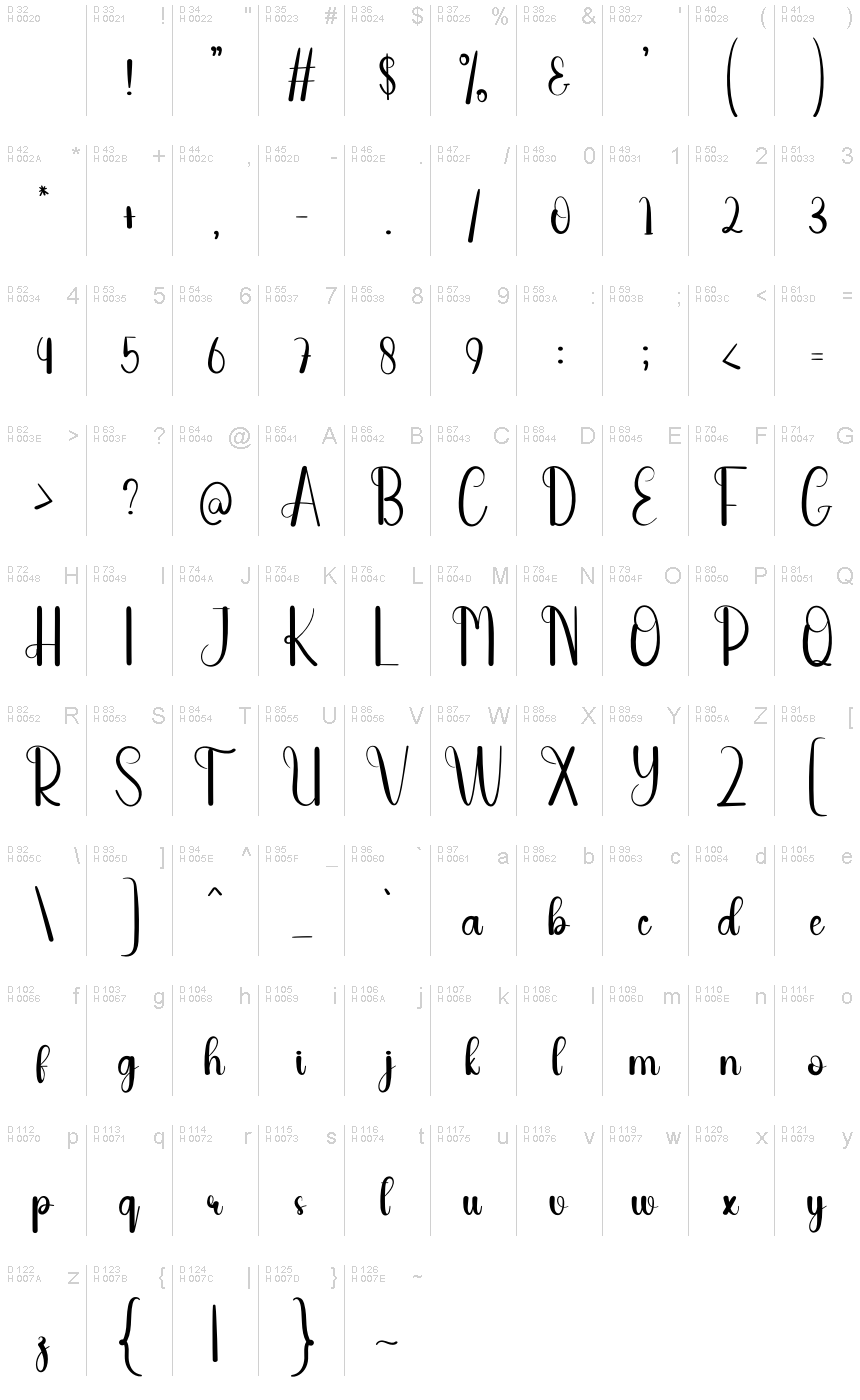
Nightday
Nightday is a captivating handwritten font that exudes a touch of elegance and sophistication. Its condensed width lends a refined, graceful appearance, making it an ideal choice for a variety of design applications. From sophisticated branding and high-end editorial layouts to inviting wedding stationery and charming social media posts, Nightday's fluid strokes and distinctive flourishes effortlessly elevate any project.
This versatile font seamlessly blends timeless charm with a modern sensibility, ensuring a visually striking and impactful outcome across diverse design contexts.